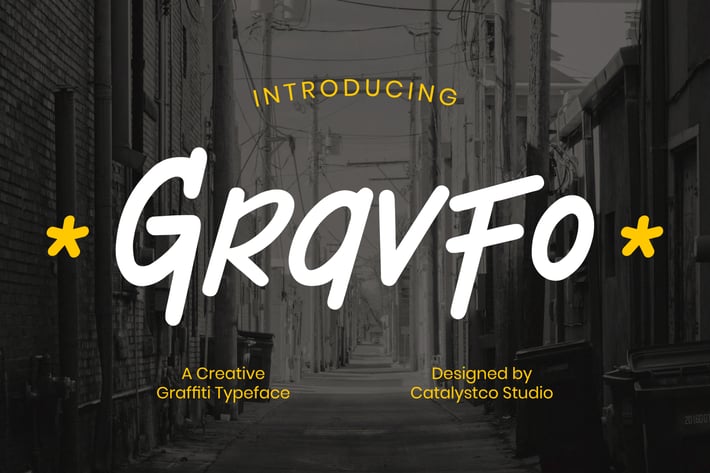
Grafvo Creative Graffiti Font
Grafvo Creative Graffiti Font a typeface inspired by the raw energy of street art and urban lettering. With its dynamic strokes, free-flowing curves, and bold character, Gravfo brings an authentic street-style vibe to any design. This font is perfect for projects that embrace creativity and self-expression, including streetwear branding, music posters, urban-themed designs, and eye-catching typography. Gravfo exudes a sense of freedom and artistic rebellion, making it an ideal choice for designers looking to add a bold and edgy touch to their work.
Ligatures & Alternate
Numeral & Punctuations
* Multilingual Support